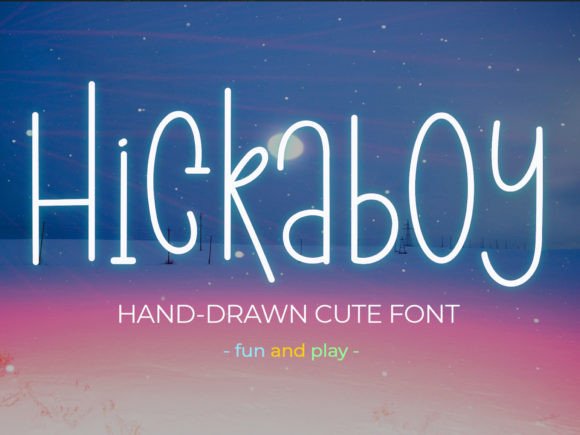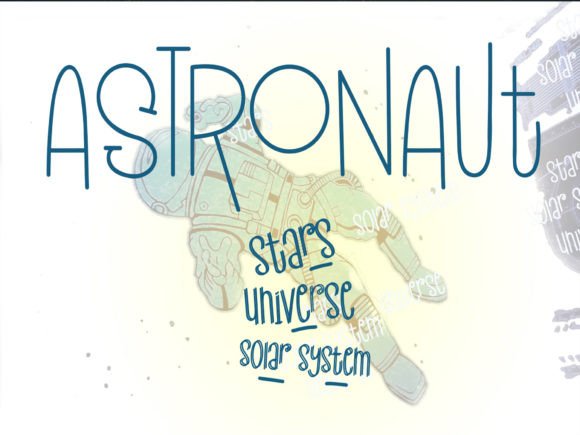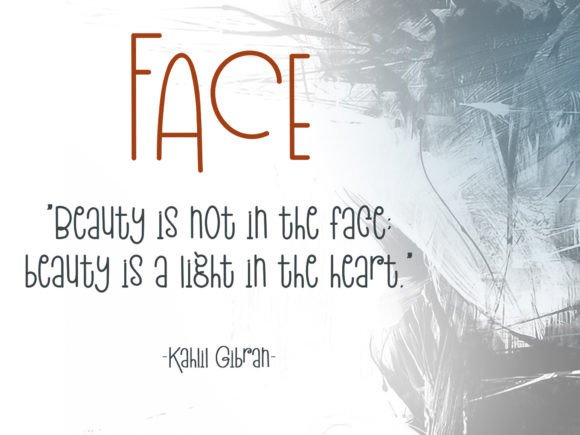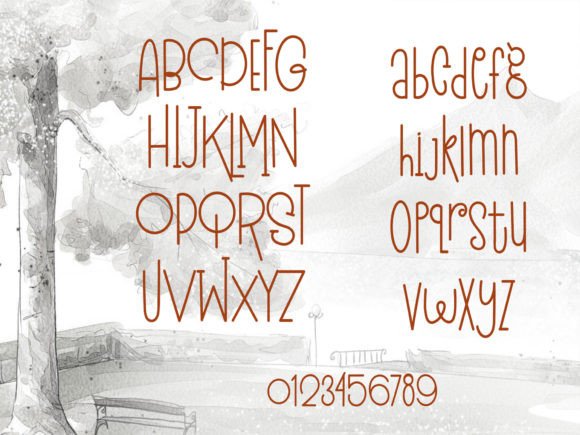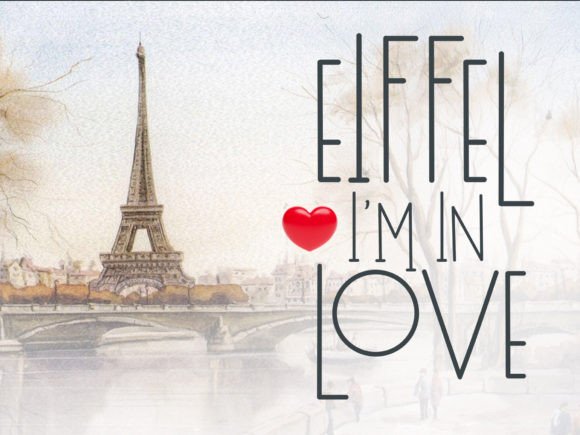
Hickaboy Font
About Hickaboy Font
The Hickaboy Font download is a modern handwritten typeface that blends elegance, simplicity, and versatility. Designed to bring a natural, handcrafted feel to your work, this font is a beautiful addition to any creative toolkit. Whether you’re creating branding materials or working on a digital campaign, Hickaboy adds a touch of sophistication to every project.
Crafted with Simplicity and Style
With its soft, flowing strokes and clean lines, the Hickaboy Font download captures the essence of handwritten charm. It’s highly legible and refined, making it suitable for both formal and creative designs. The minimalist yet expressive design makes it ideal for a wide range of applications, including:
• Stylish logo designs
• Modern magazine layouts
• Social media branding and quotes
• Elegant brochures and flyers
• Wedding stationery and invitations
Features That Enhance Every Project
Key features include:
• Elegant and clean handwritten style
• Excellent readability in both print and digital
Make Your Designs Stand Out
Whether you’re designing packaging for a luxury product or posting a quote to Instagram, the Hickaboy Font download brings your words to life. Its timeless look ensures your design remains current and engaging for years to come.